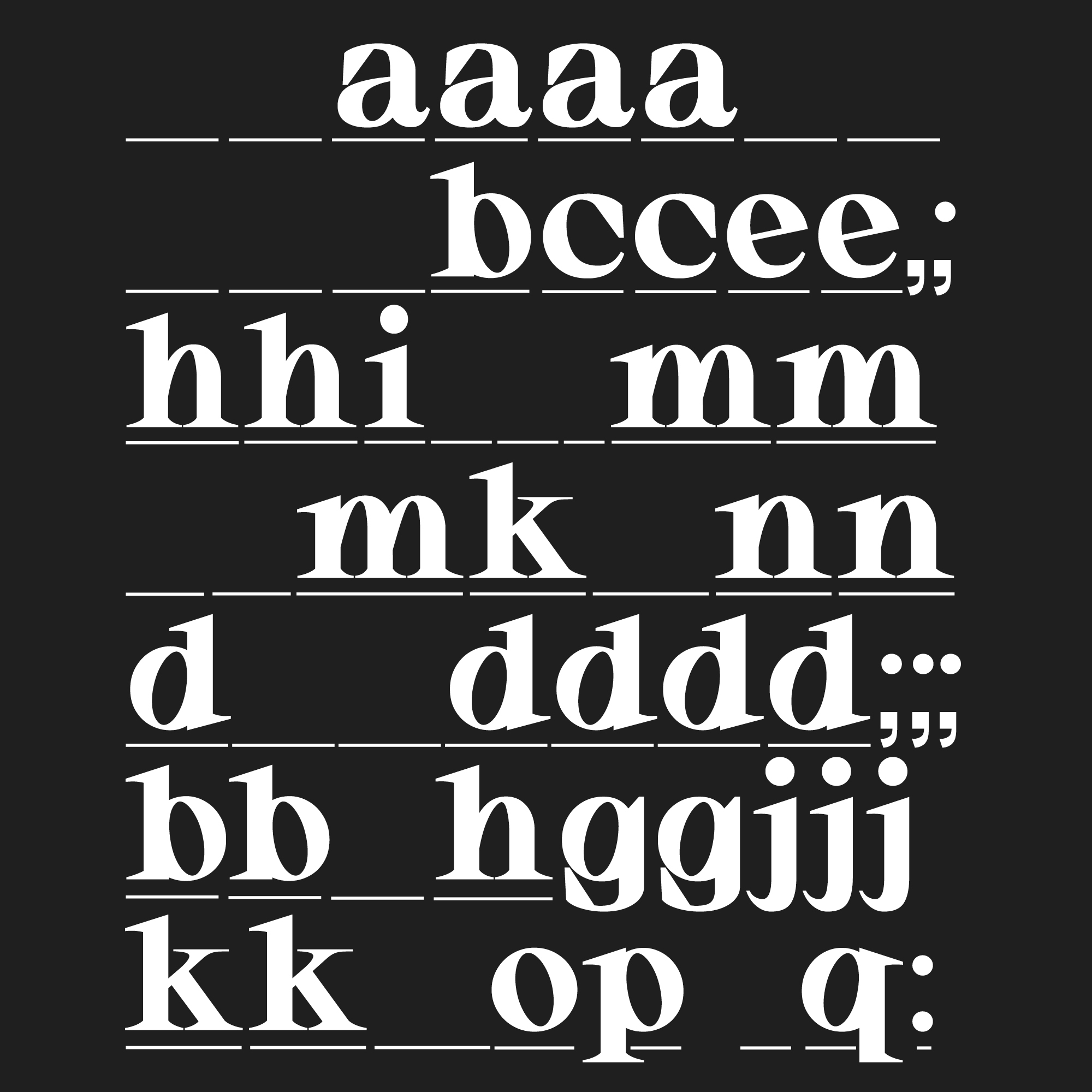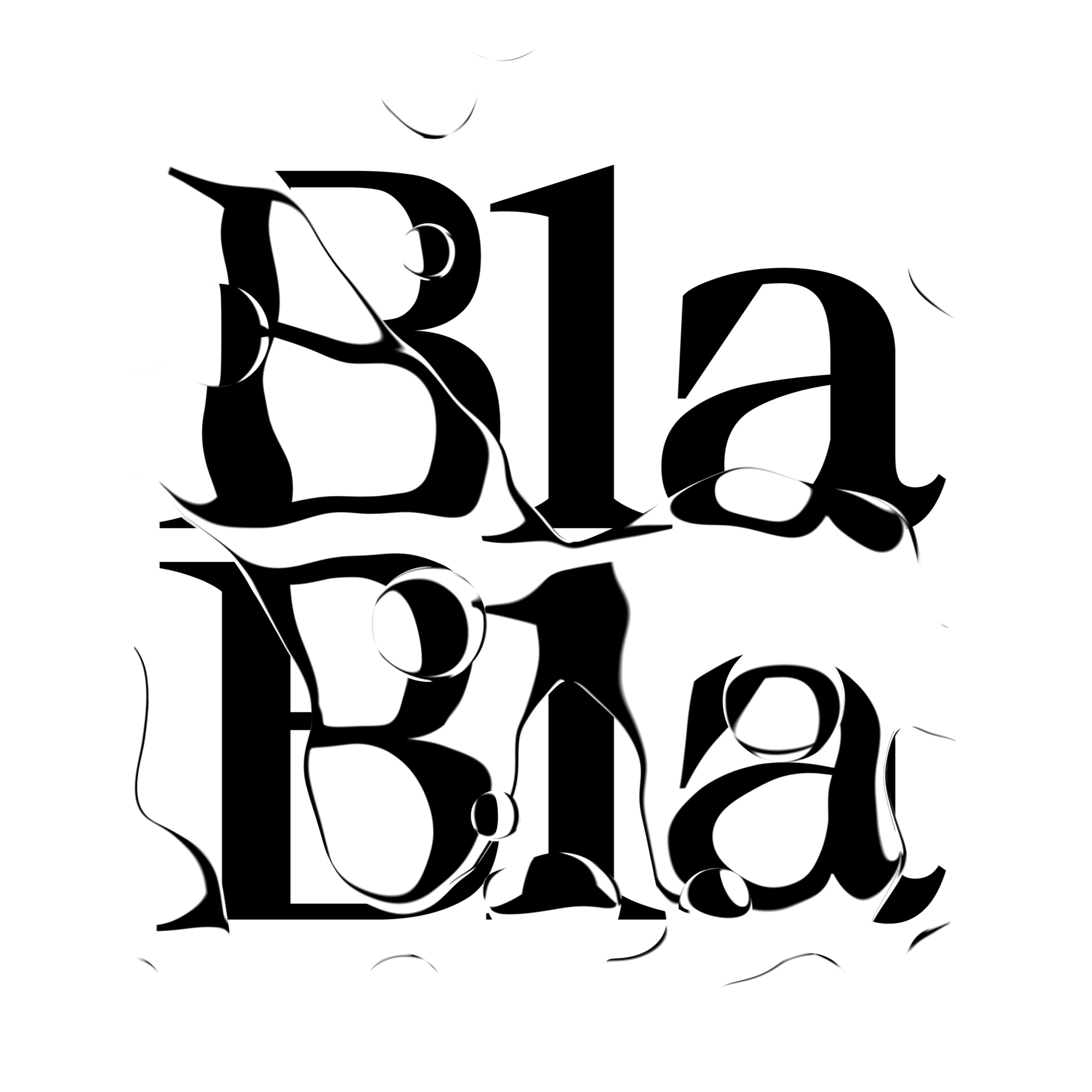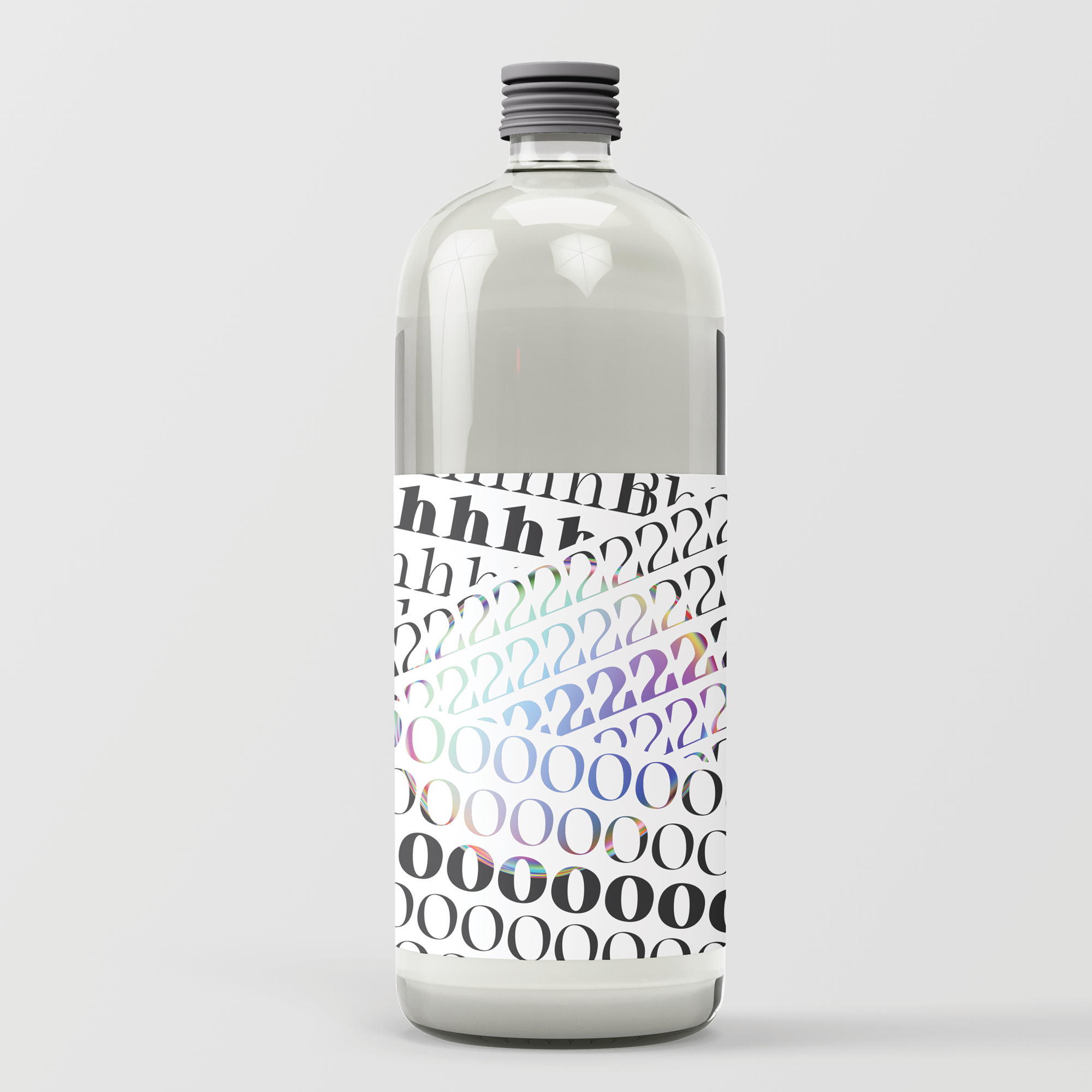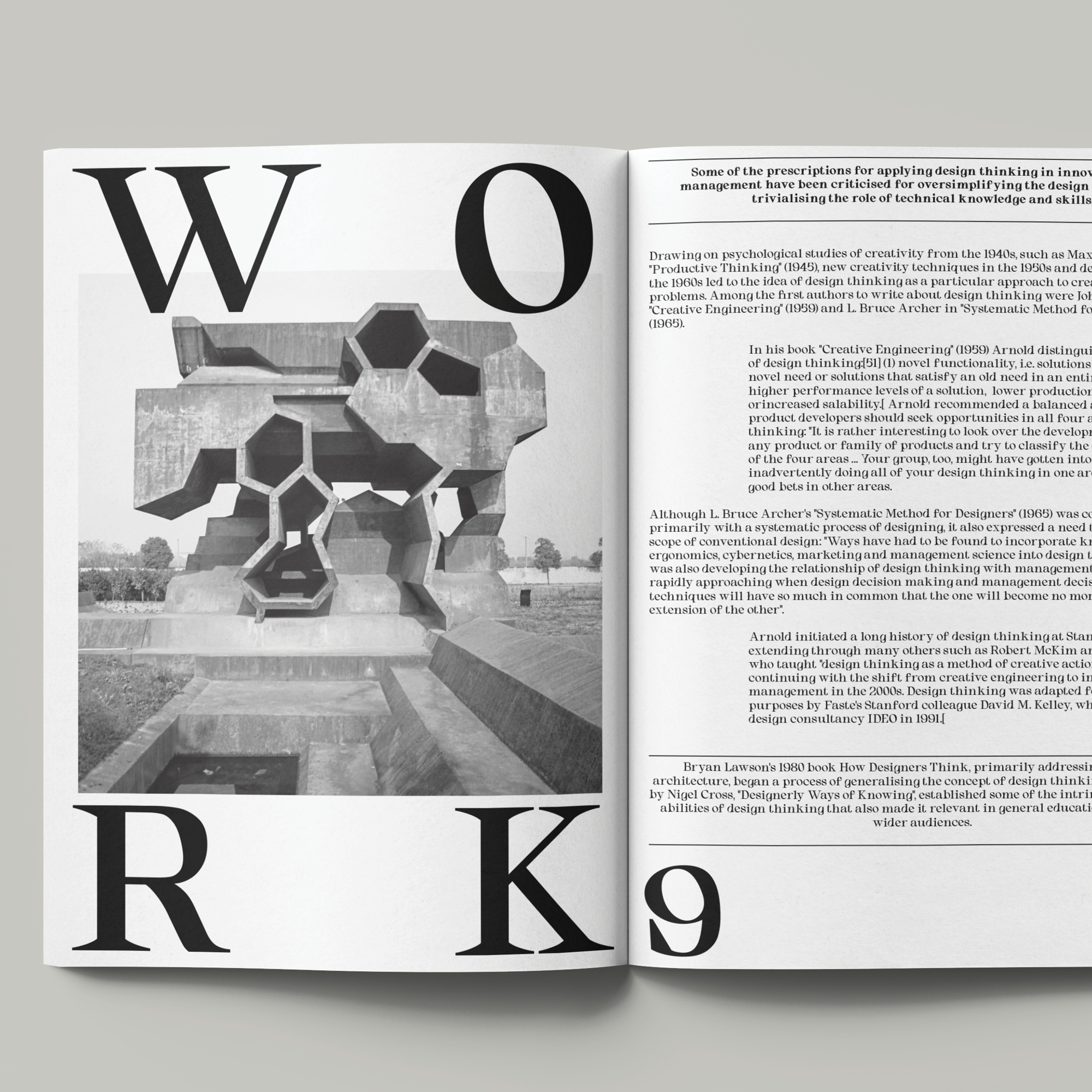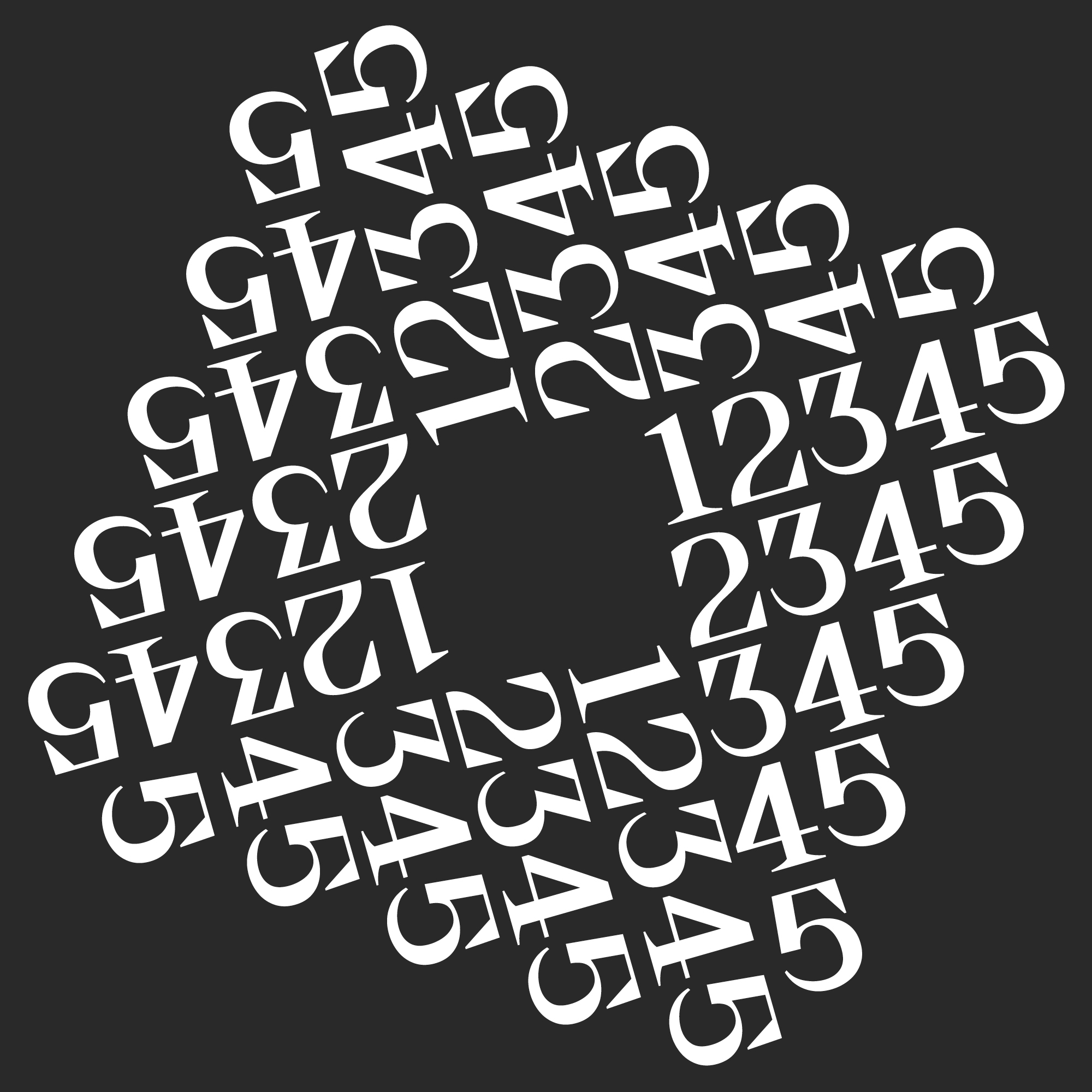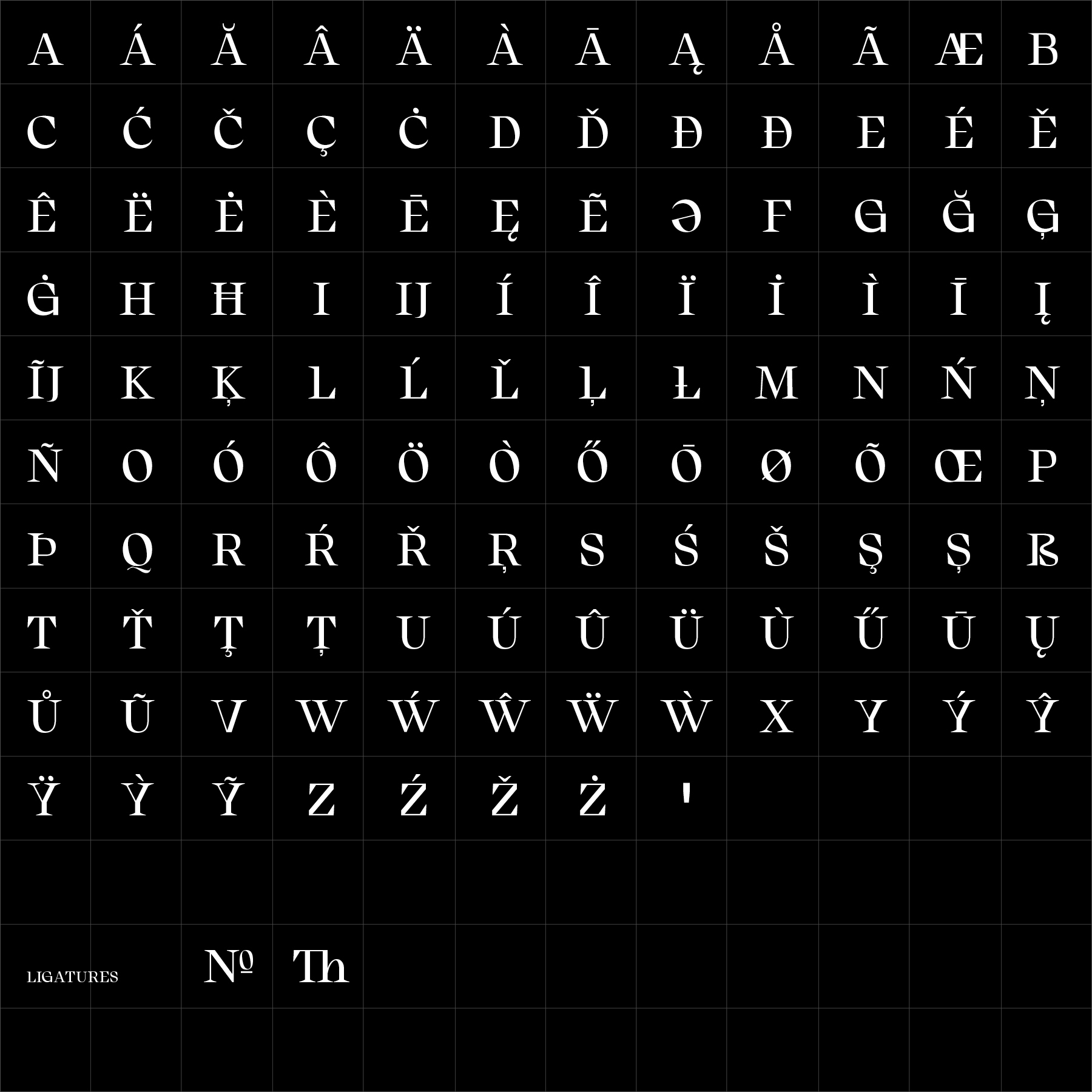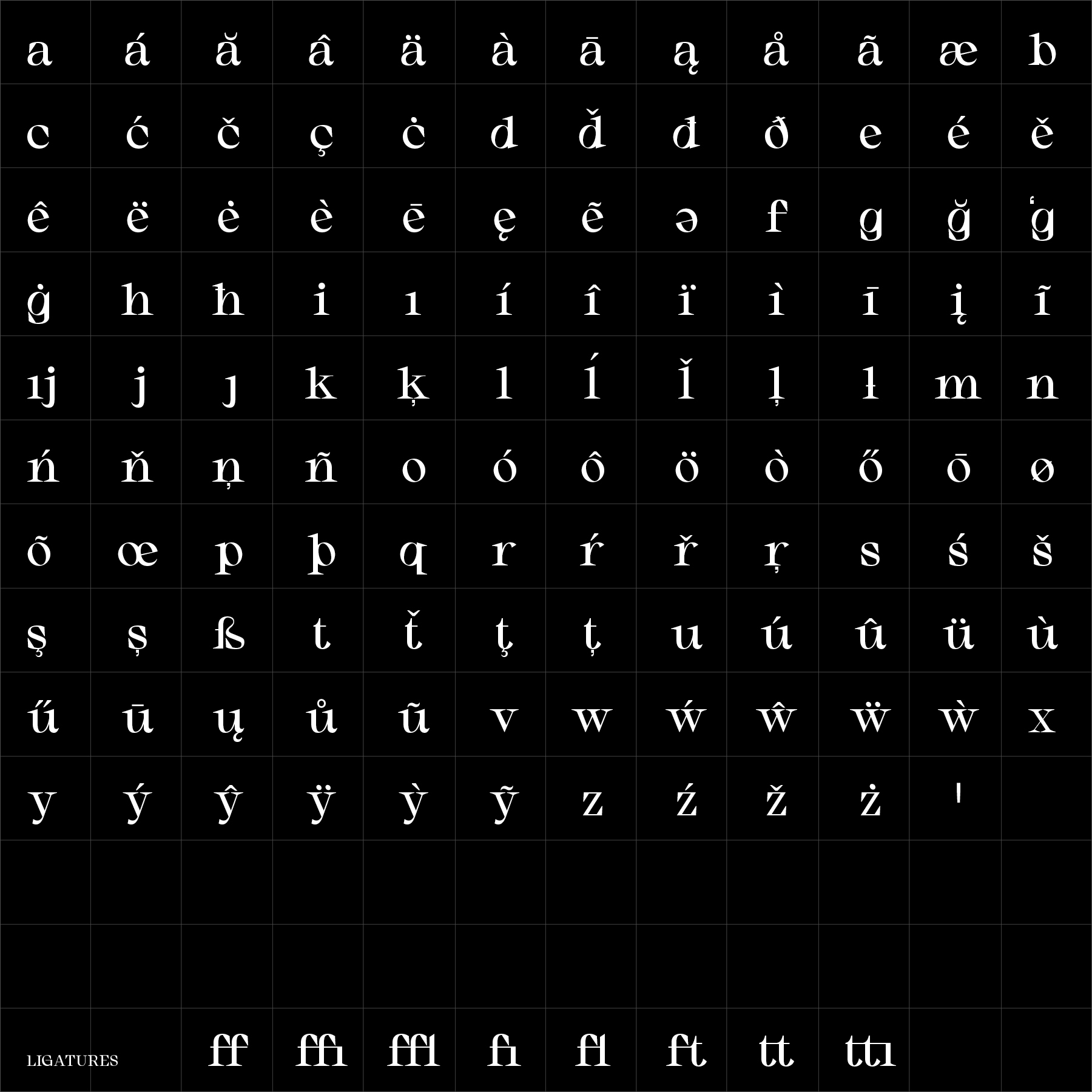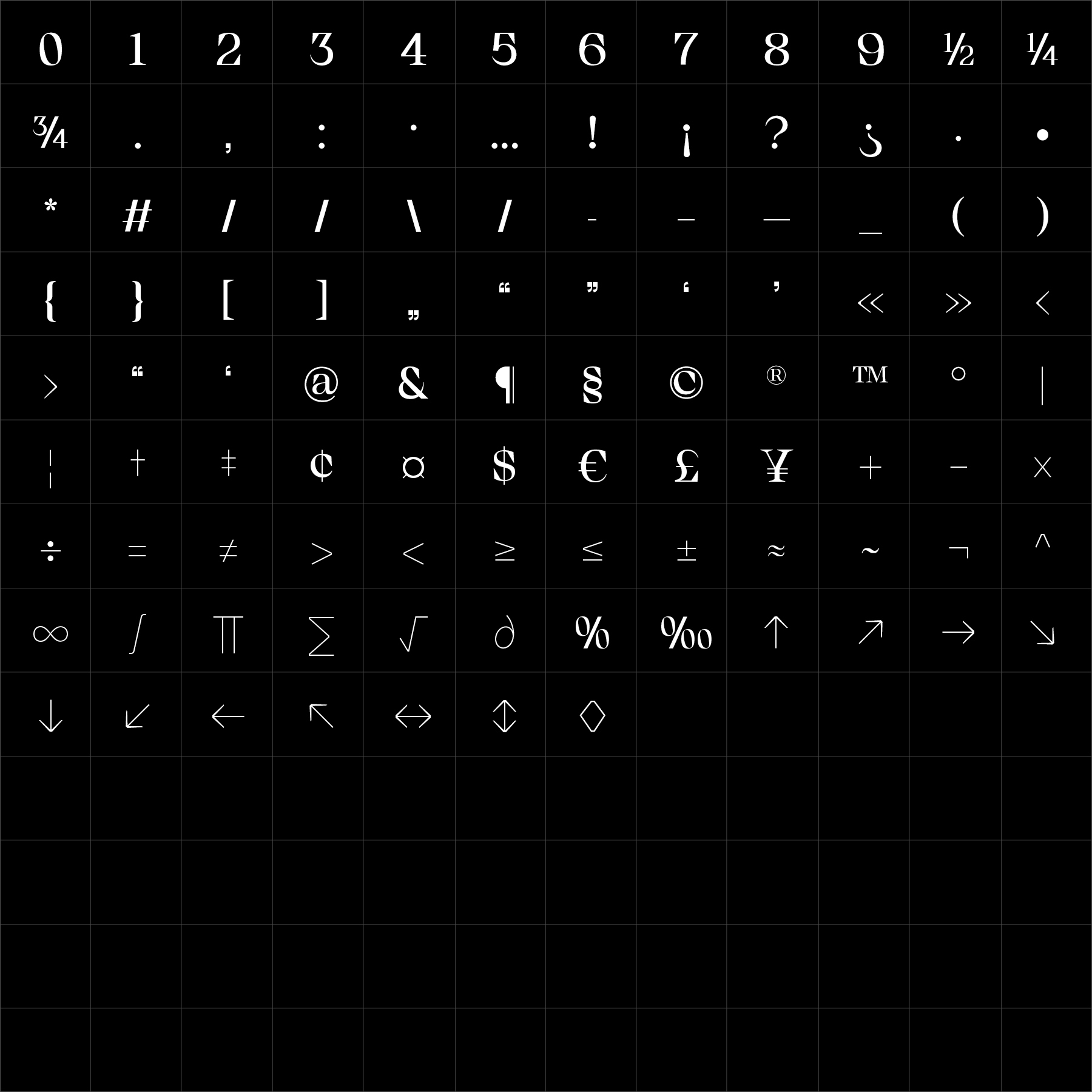
Bla Bla
Bla Bla Serif is an expressive display serif designed with exaggerated curves, playful rhythm, and a strong sense of visual personality. Built to challenge the restraint of traditional serif typography, the family embraces movement, contrast, and unconventional shaping to create typography that feels energetic, bold, and immediately recognisable. The typeface combines classical serif references with distorted proportions and sculpted details, producing a visual language that feels both elegant and irreverent. Large counters, dramatic transitions, and flowing terminals create compositions rich in texture and rhythm. Bla Bla Serif is designed for branding, packaging, editorial headlines, fashion communication, and visual identities where typography is intended to lead rather than support. At larger sizes, the expressive nature of the letterforms becomes particularly pronounced, allowing the typeface to create strong visual atmosphere and distinction. Designed for contemporary creative work seeking individuality and character, Bla Bla Serif offers a more playful and expressive alternative to conventional display serif systems.